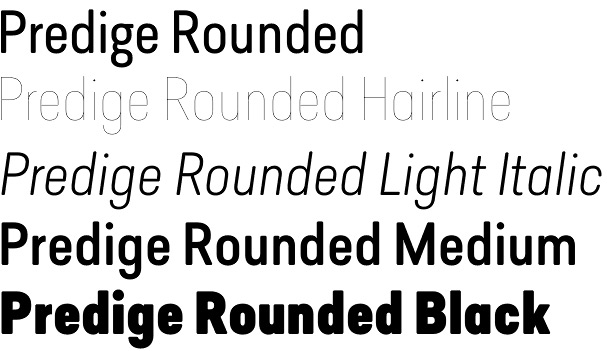
Predige Rounded
Predige Rounded font by Type Dynamic foundry is the softer version of Predige sans serif font family. It comes in 7 weights: Hairline, Thin, Light, Regular, Medium, Bold, and Black, all of them paired with the corresponding italics. Predige Rounded font family is condensed and constructed sans featuring very low contrast and softened letter corners.
Predige Rounded font offers a plenty of OpenType options such as Stylistic Alternates, Oldstyle Figures, Proportional Figures, Tabular Figures, Numerator, Superscript, Denominators, Scientific Inferiors, Subscript, Ordinals, Ligatures and Fractions.